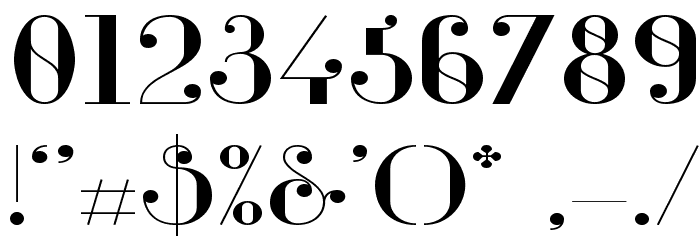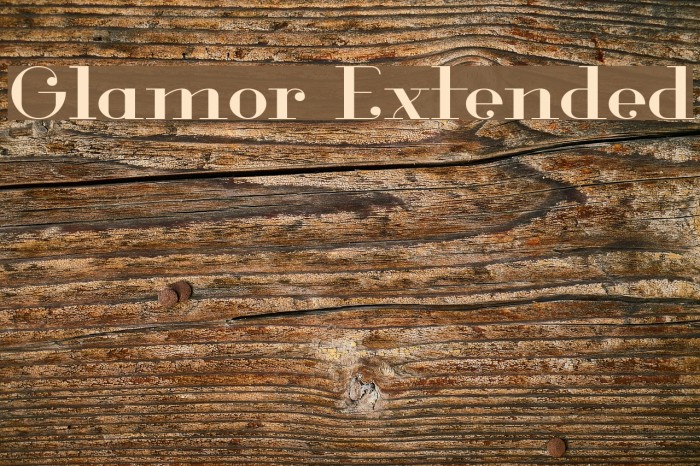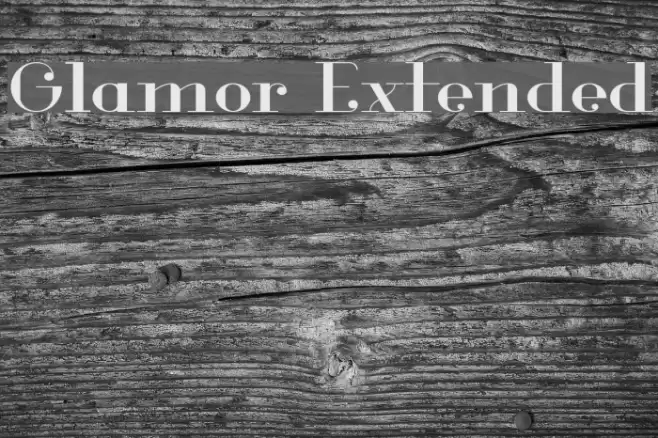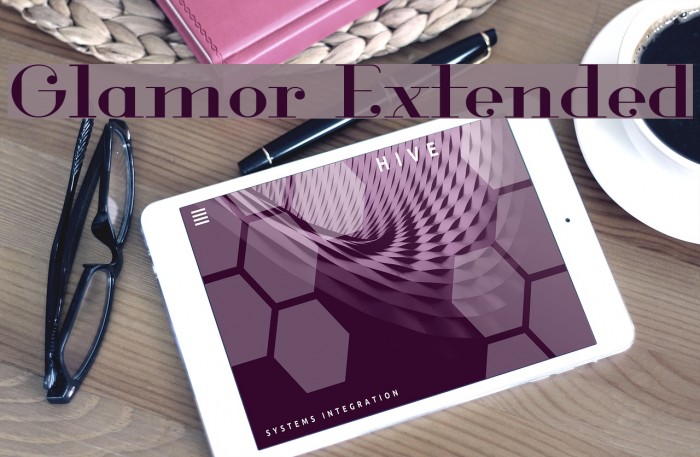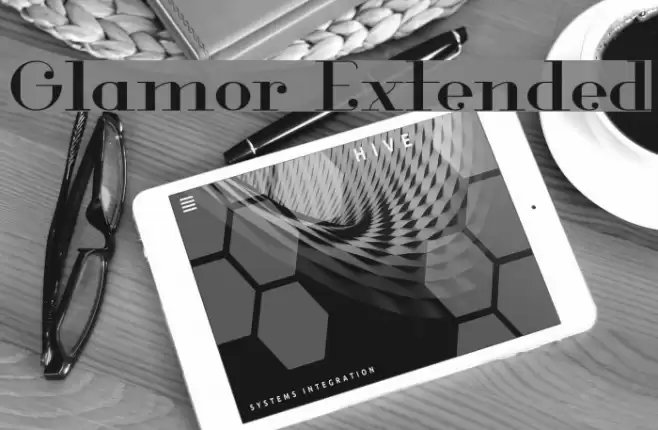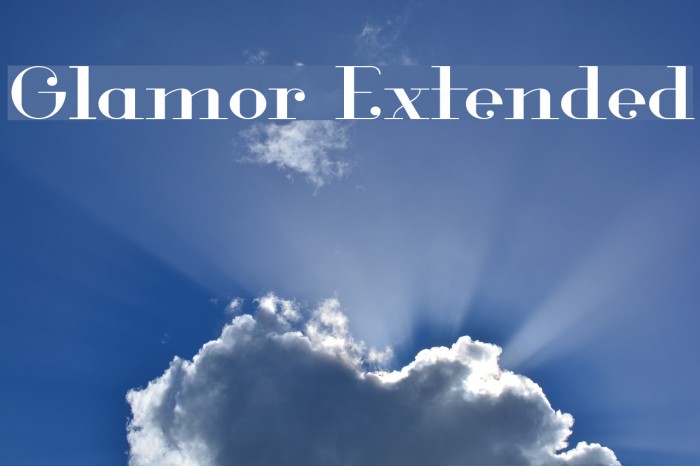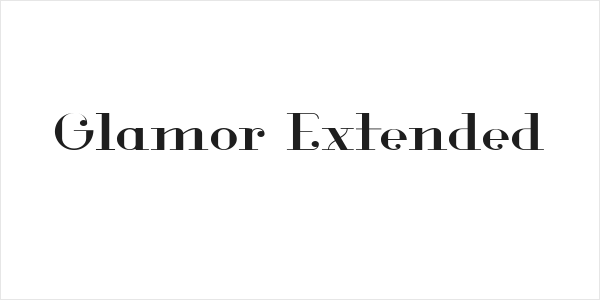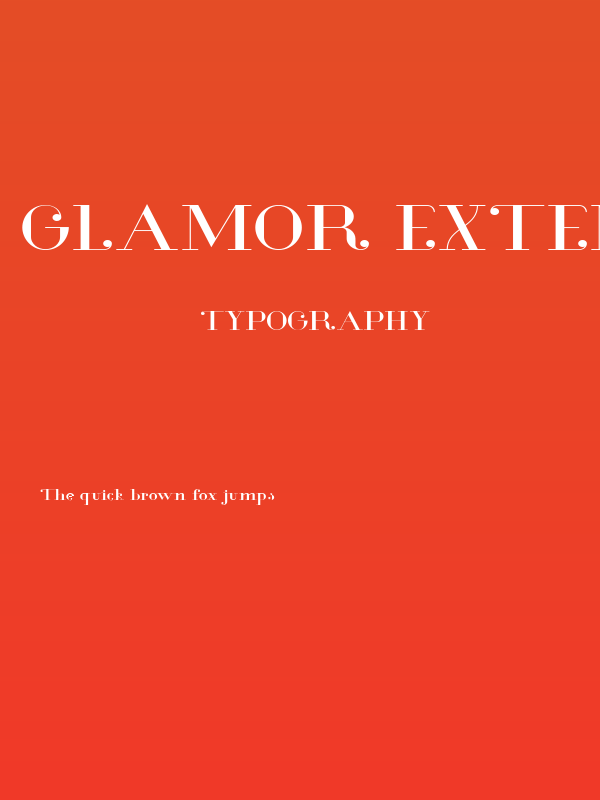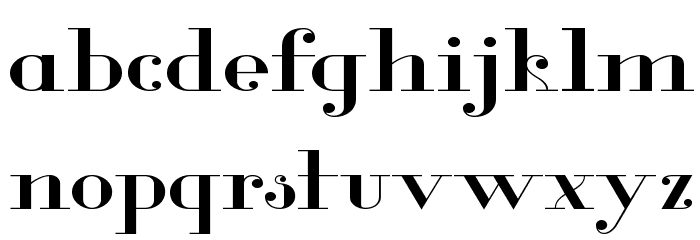
Glamor Extended Font
Glamor Extended Description
This font exudes elegance and sophistication with its high contrast between thick and thin strokes. The serifs are pronounced, adding a touch of classic refinement. The uppercase letters are tall and commanding, while the lowercase letters maintain a balanced and harmonious flow. The numerals are distinct and stylish, complementing the overall aesthetic. Special characters are crafted with the same attention to detail, making this font versatile for various design needs.
| Proposed Projects | Ideal for luxury branding, editorial design, fashion magazines, and elegant invitations. |